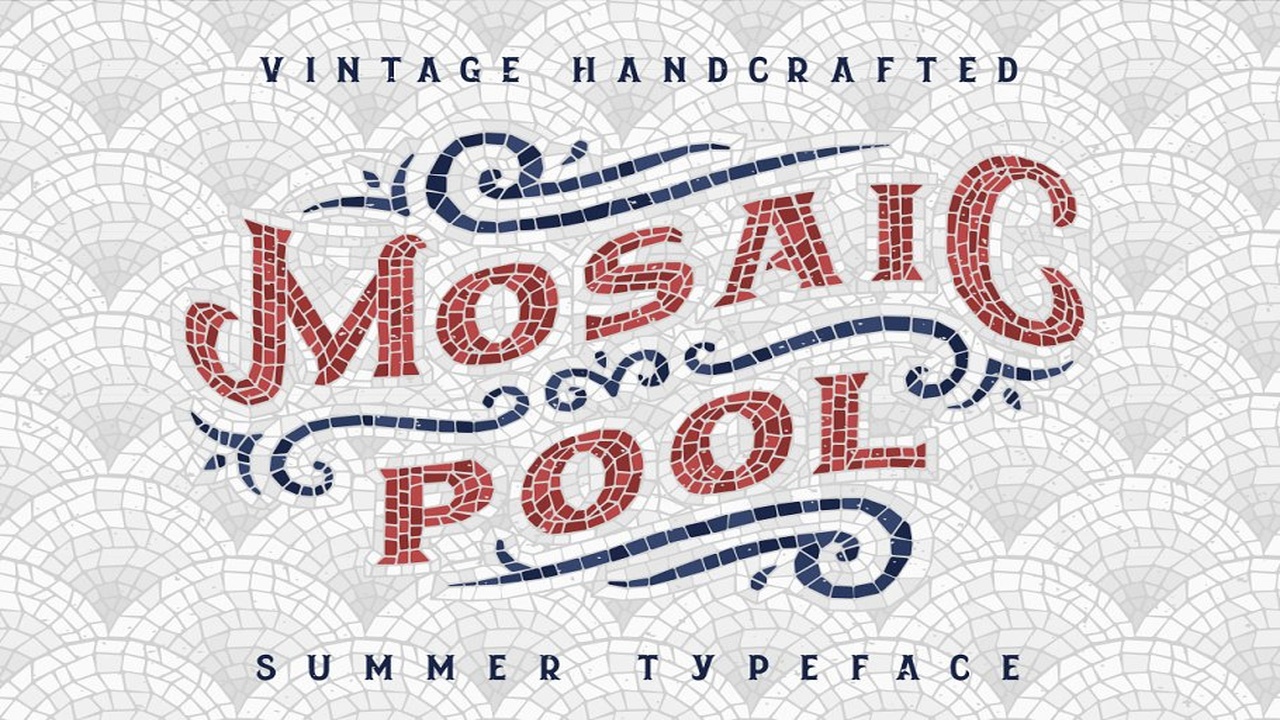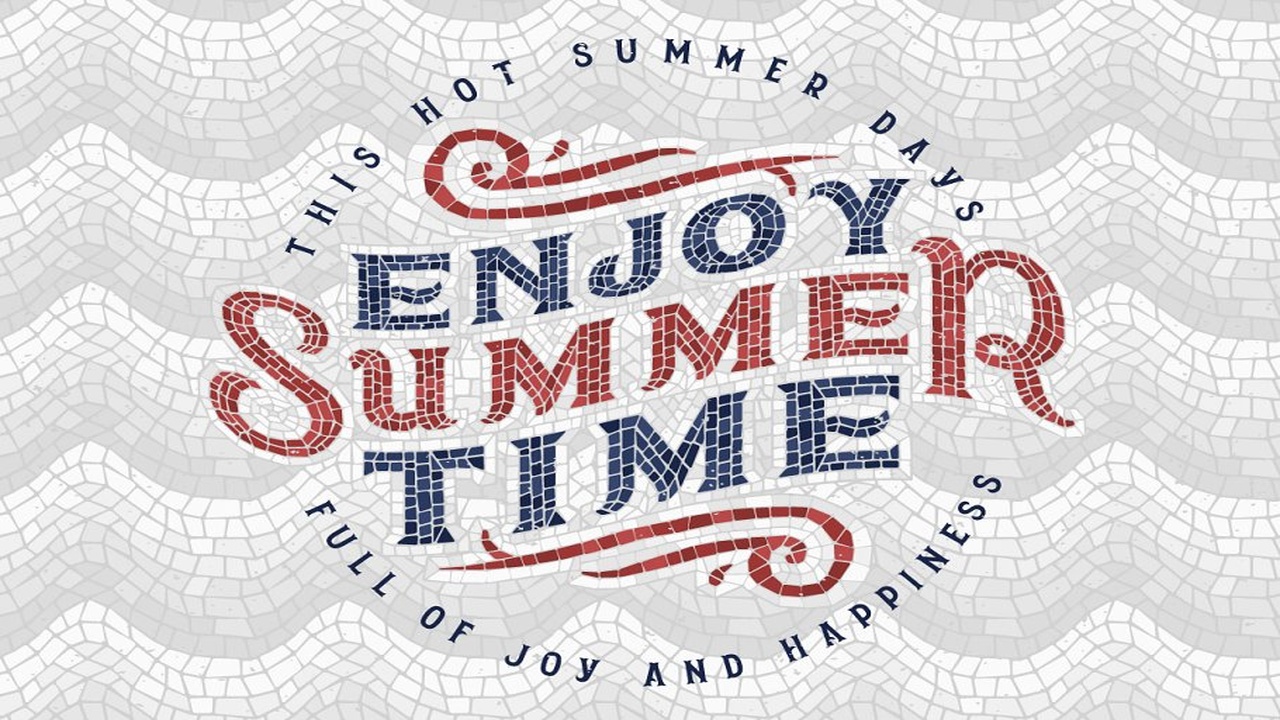
About the Mosaic Pool Typeface Font
Hi, Introducing a handcrafted font Mosaic Pool, This typeface consists of three font layers, that makes it easier to recolor and manipulate, Also a vector design stuff is included as a bonus, What’s inside:Otf & Ttf font files4 vector mosaic seamless patterns (Eps, Ai)Vector Eps with all charactersThank you & have a great day!